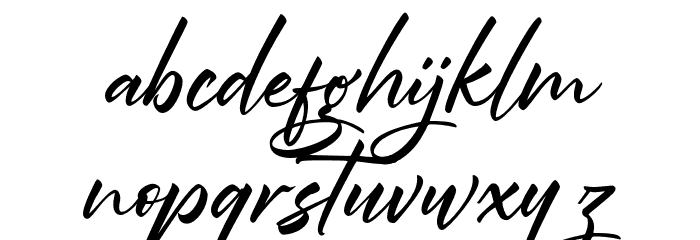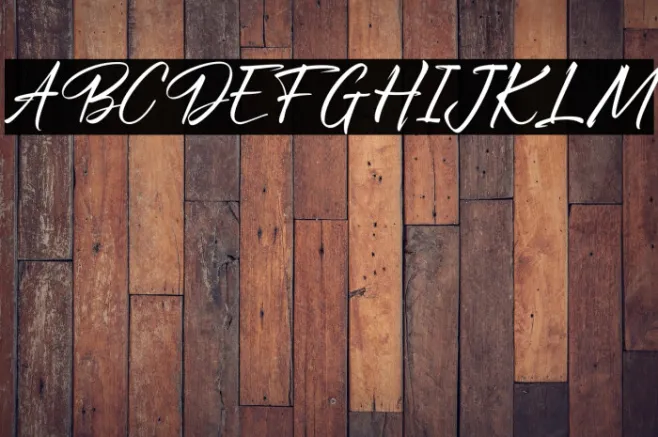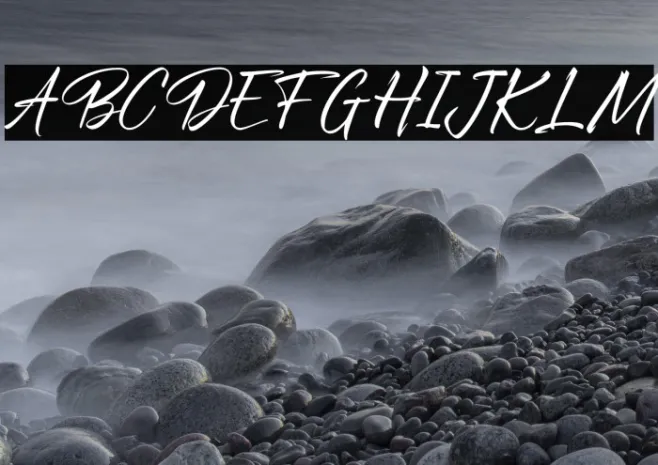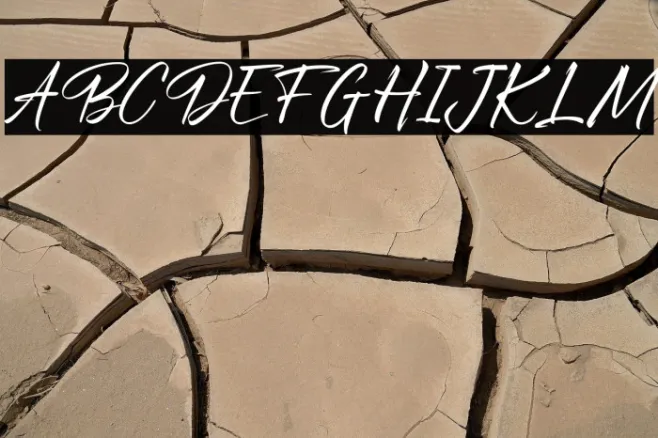
RawriltingFREE Font
This font exudes a dynamic and elegant script style, characterized by its fluid and connected letterforms. The uppercase letters are bold and sweeping, with a graceful flow that suggests movement and sophistication. The lowercase letters maintain a consistent style, with smooth curves and a slightly slanted orientation that enhances the handwritten feel. The numerals and special characters are crafted with the same attention to detail, ensuring a cohesive look across all elements. This font is ideal for projects that require a personal touch, such as invitations, branding, or any design that seeks to convey elegance and creativity.
A dynamic and elegant script font with fluid, connected letterforms.
- Font: RawriltingFREE
- Proposed Projects: Ideal for invitations, branding, and creative designs requiring a personal touch.
- Category: Script
- Overall Style: Elegant
- Use Case: Logos, Invitations, Branding